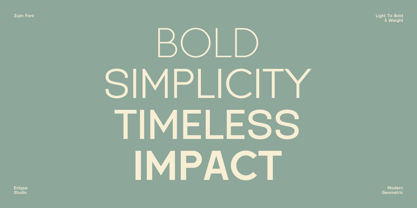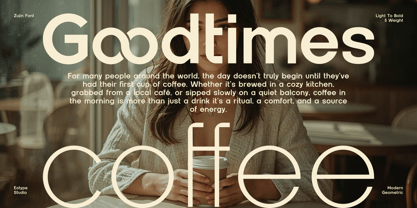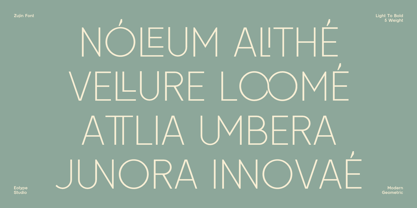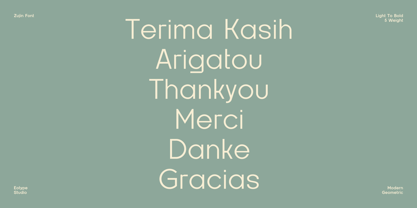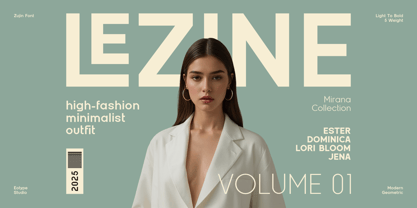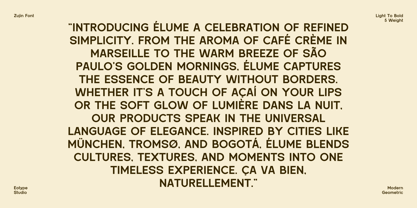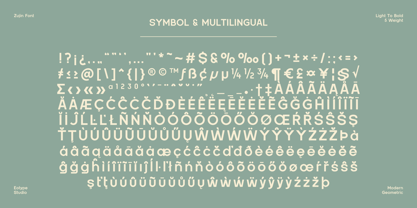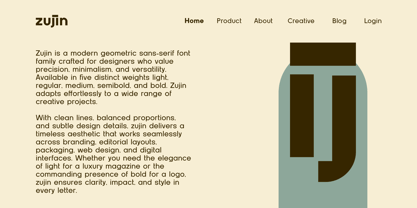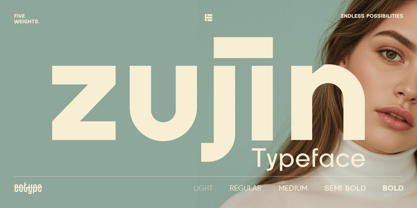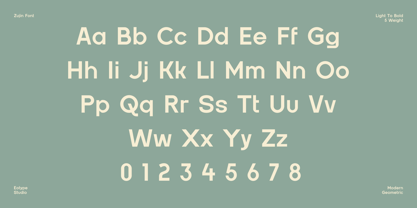
Zujin
by Eotype
The Zujin Font Family was designed by Fajar Ramadan and published by Eotype. Zujin contains 5 styles and family package options. More about this family
Zujin is a modern geometric sans-serif font family crafted for designers who value precision, minimalism, and versatility. Available in five distinct weights Light, Regular, Medium, Semibold, and Bold. Zujin adapts effortlessly to a wide range of creative projects.
With clean lines, balanced proportions, and subtle design details, Zujin delivers a timeless aesthetic that works seamlessly across branding, editorial layouts, packaging, web design, and digital interfaces. Whether you need the elegance of Light for a luxury magazine or the commanding presence of Bold for a logo, Zujin ensures clarity, impact, and style in every letter.
- 5 meticulously crafted weights: Light, Regular, Medium, Semibold, Bold
- Modern geometric sans-serif style
- Excellent legibility in both small and large sizes
- Perfect for print and digital use
- Multi-purpose: branding, editorial, advertising, web, UI/UX, social media, packaging
Branding & Logo Design – Give your brand a confident and modern personality
Editorial & Magazines – Achieve clean, high-end typography layouts
UI & Web Design – Ensure clarity and style in interfaces and headlines
Advertising & Posters – Make bold statements that capture attention
Product Packaging – From minimal cosmetics to bold retail packaging